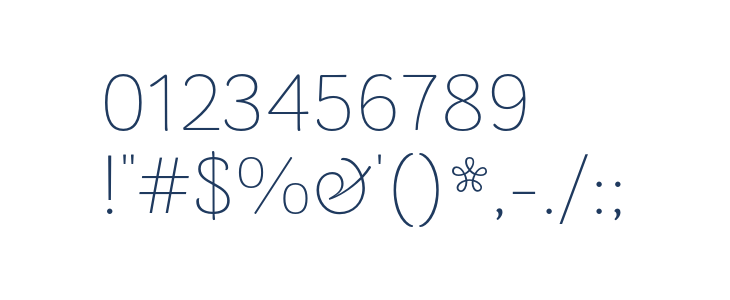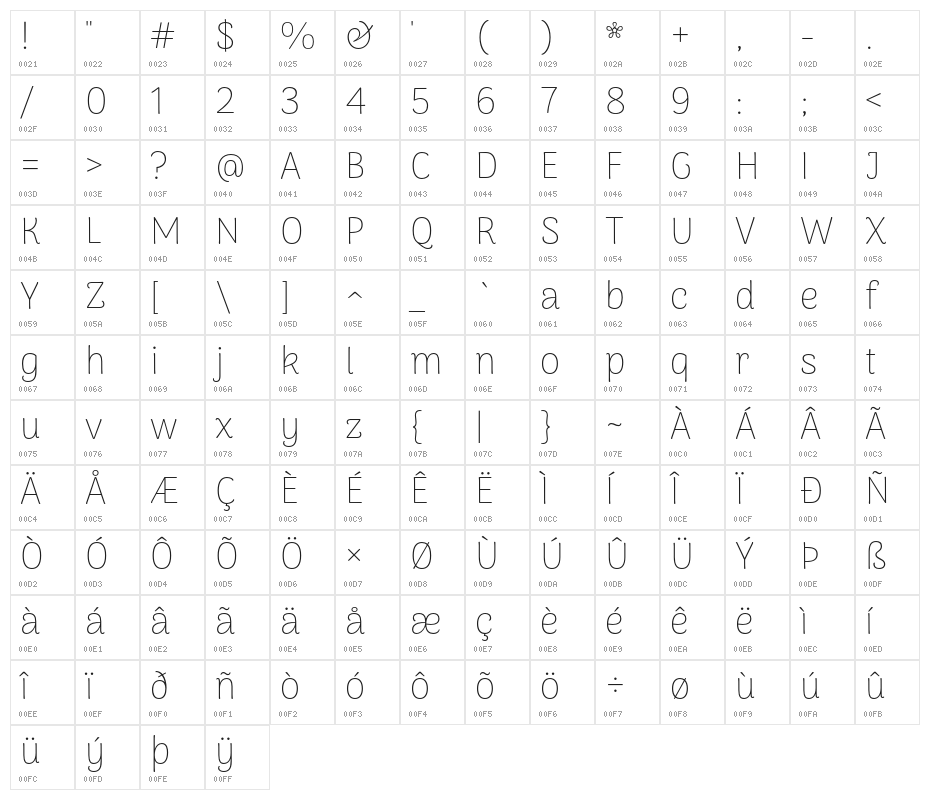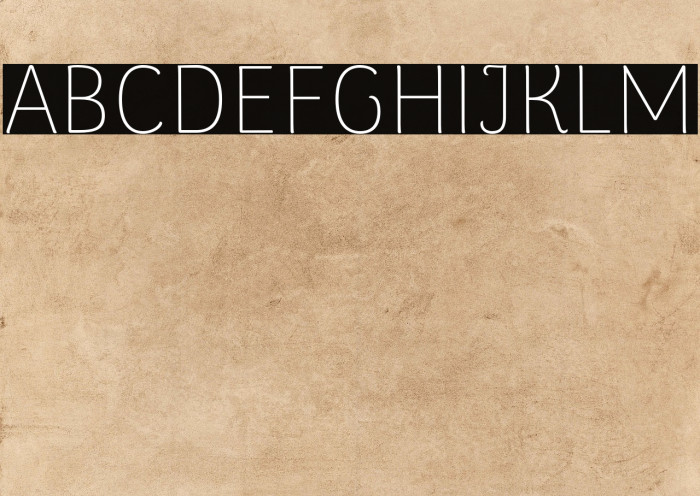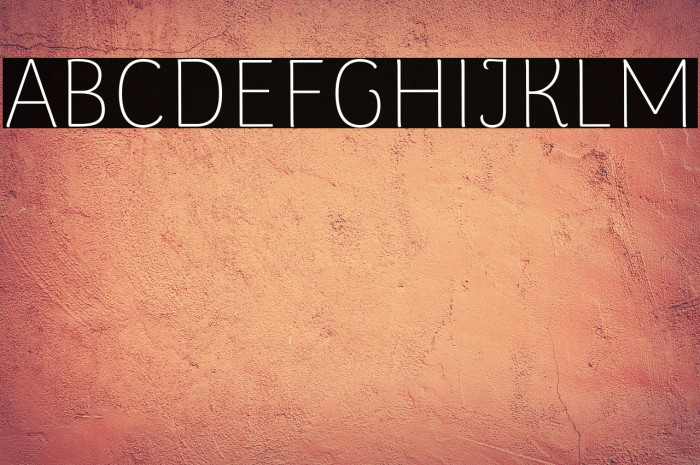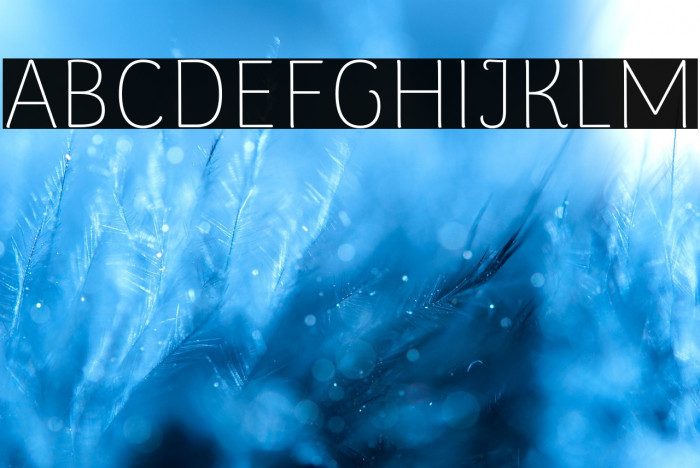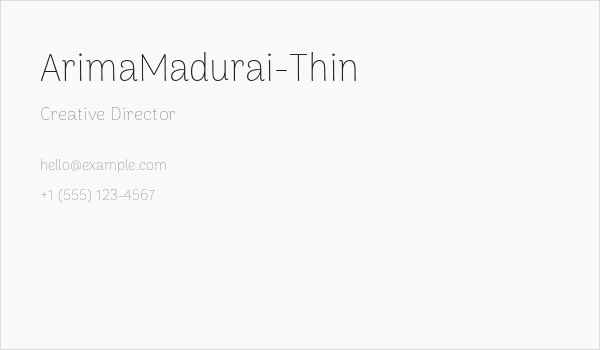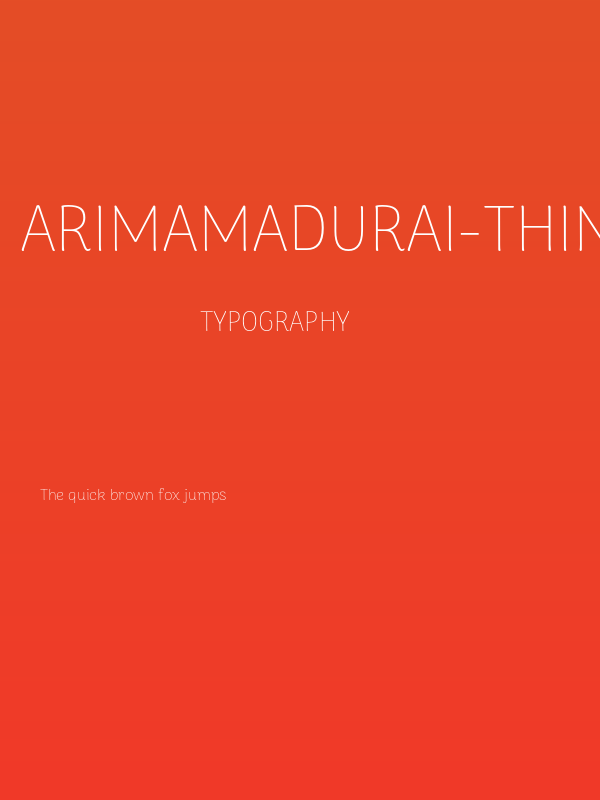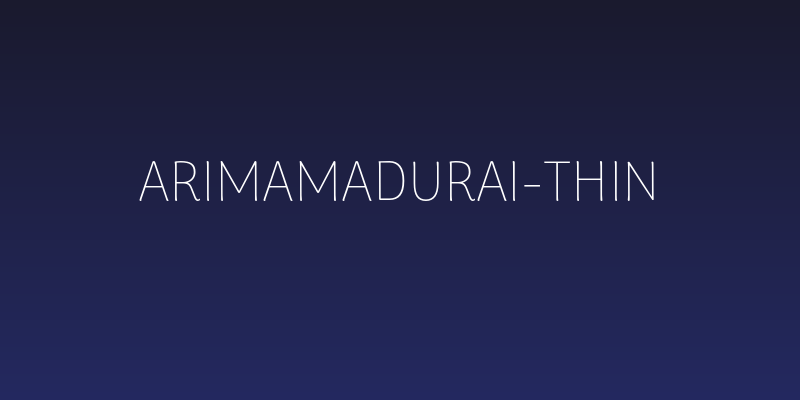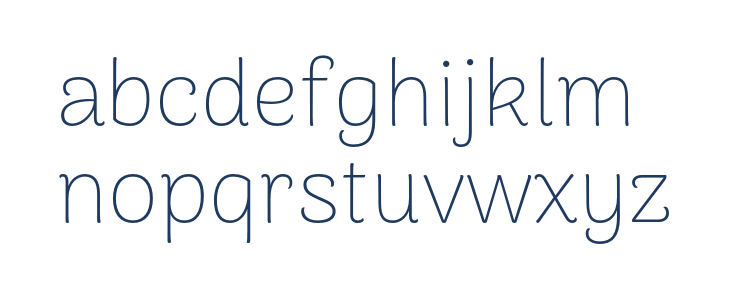
ArimaMadurai-Thin Font
ArimaMadurai-Thin Description
This font features a clean and modern design with a thin and elegant structure. The characters are evenly spaced, providing a harmonious and balanced appearance. The uppercase letters are tall and slightly narrow, while the lowercase letters maintain a consistent height, contributing to a cohesive look. The numerals are clear and legible, making them suitable for various applications. Special characters are well-defined, adding versatility to the font's use. The overall style is minimalist, making it ideal for contemporary design projects.